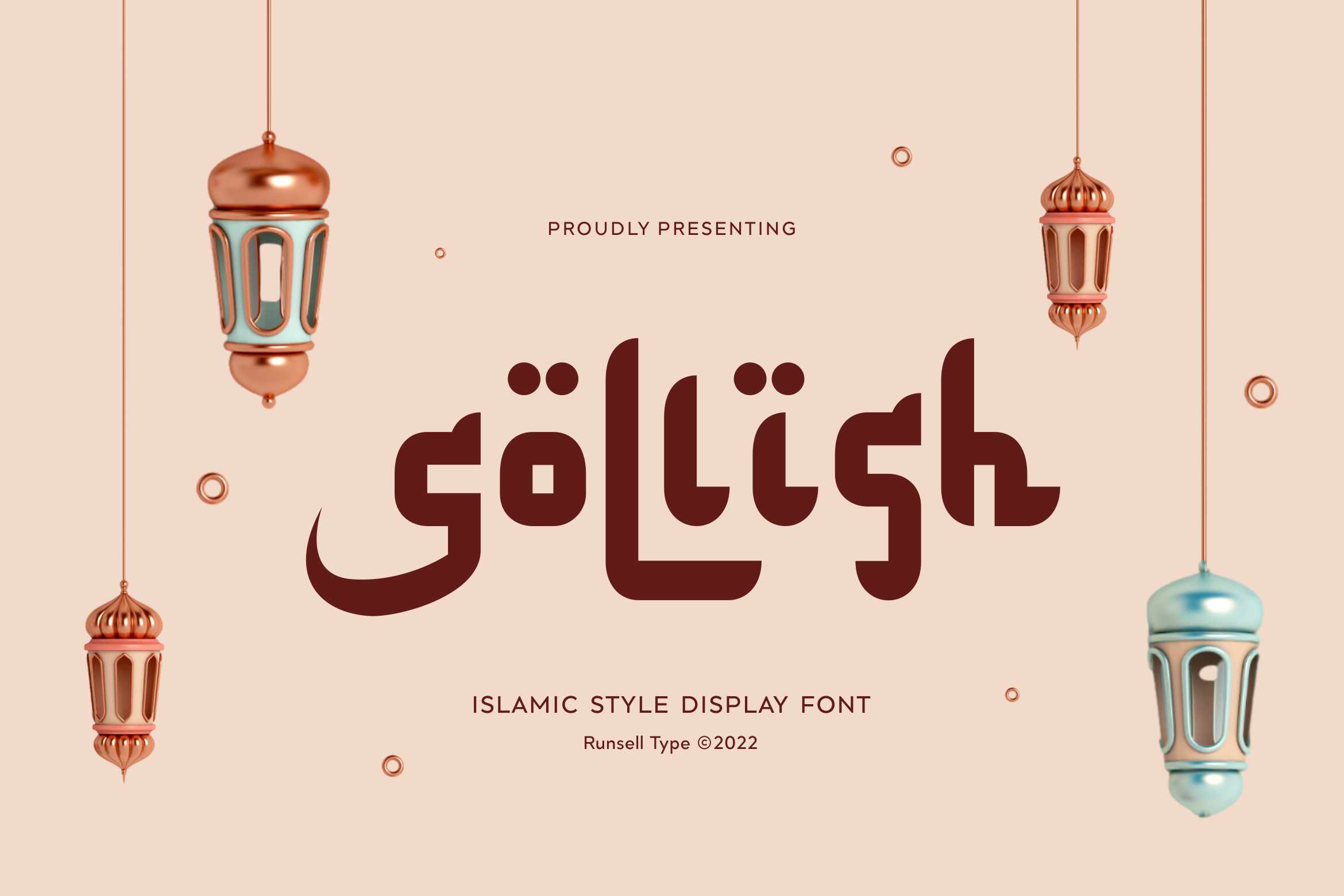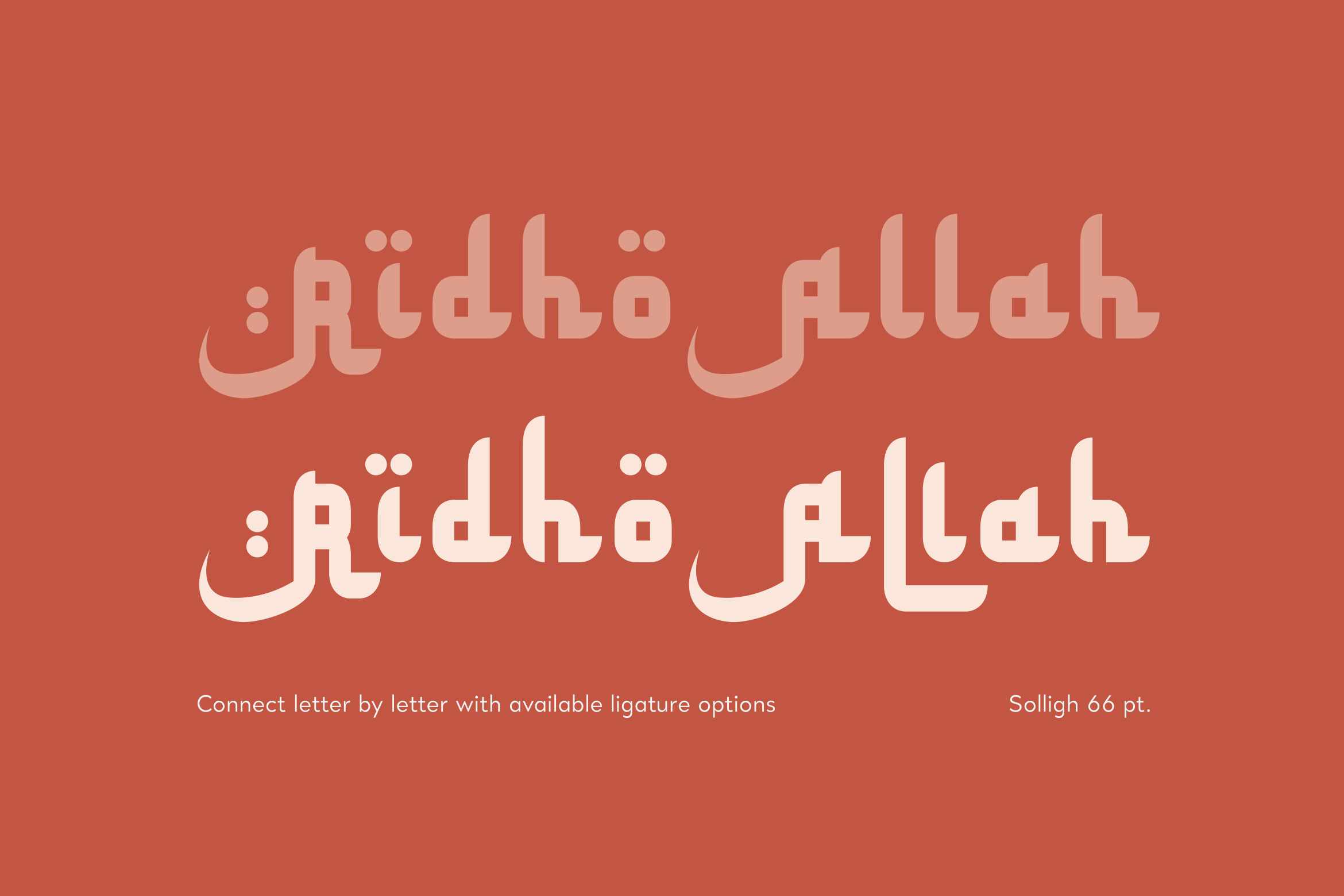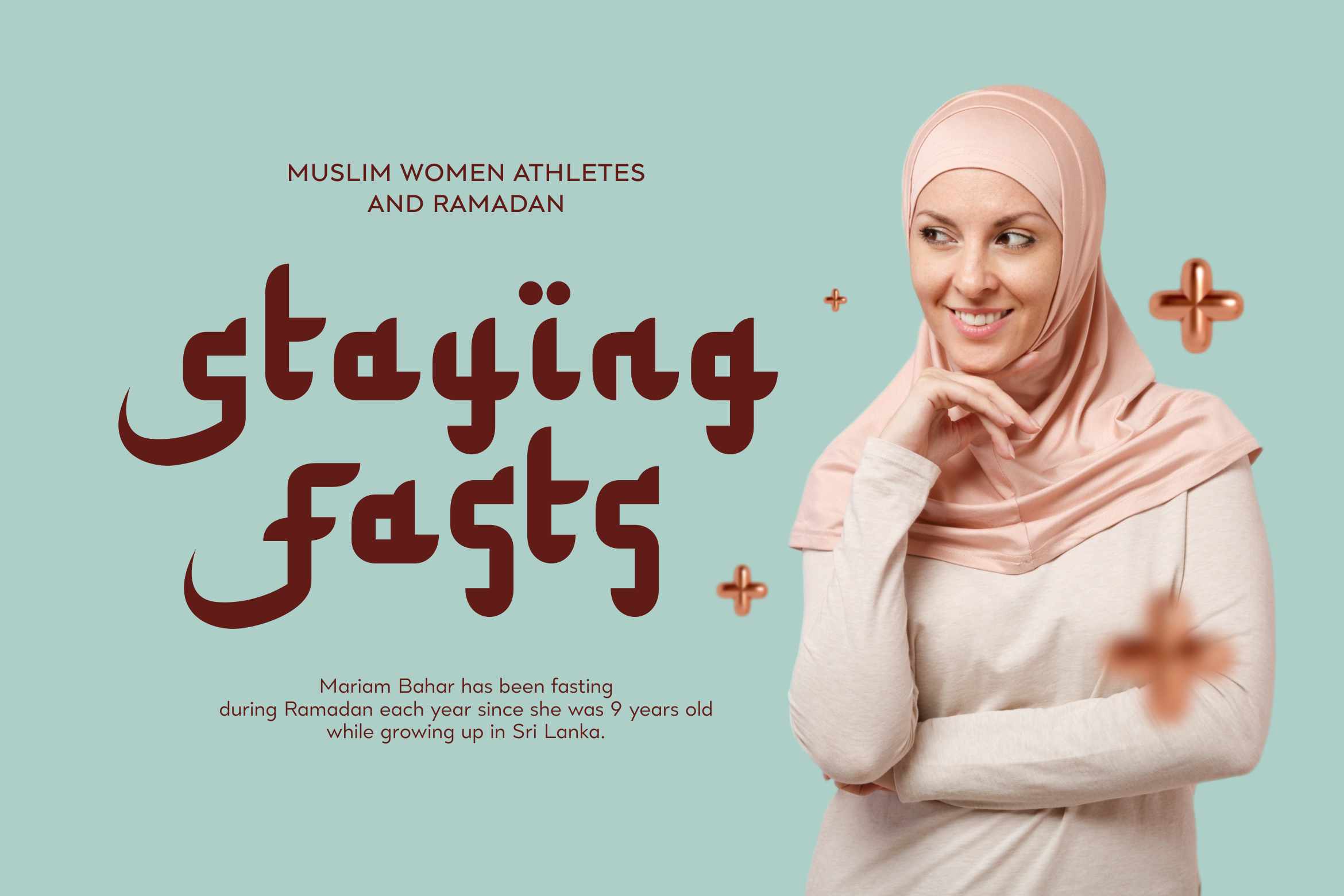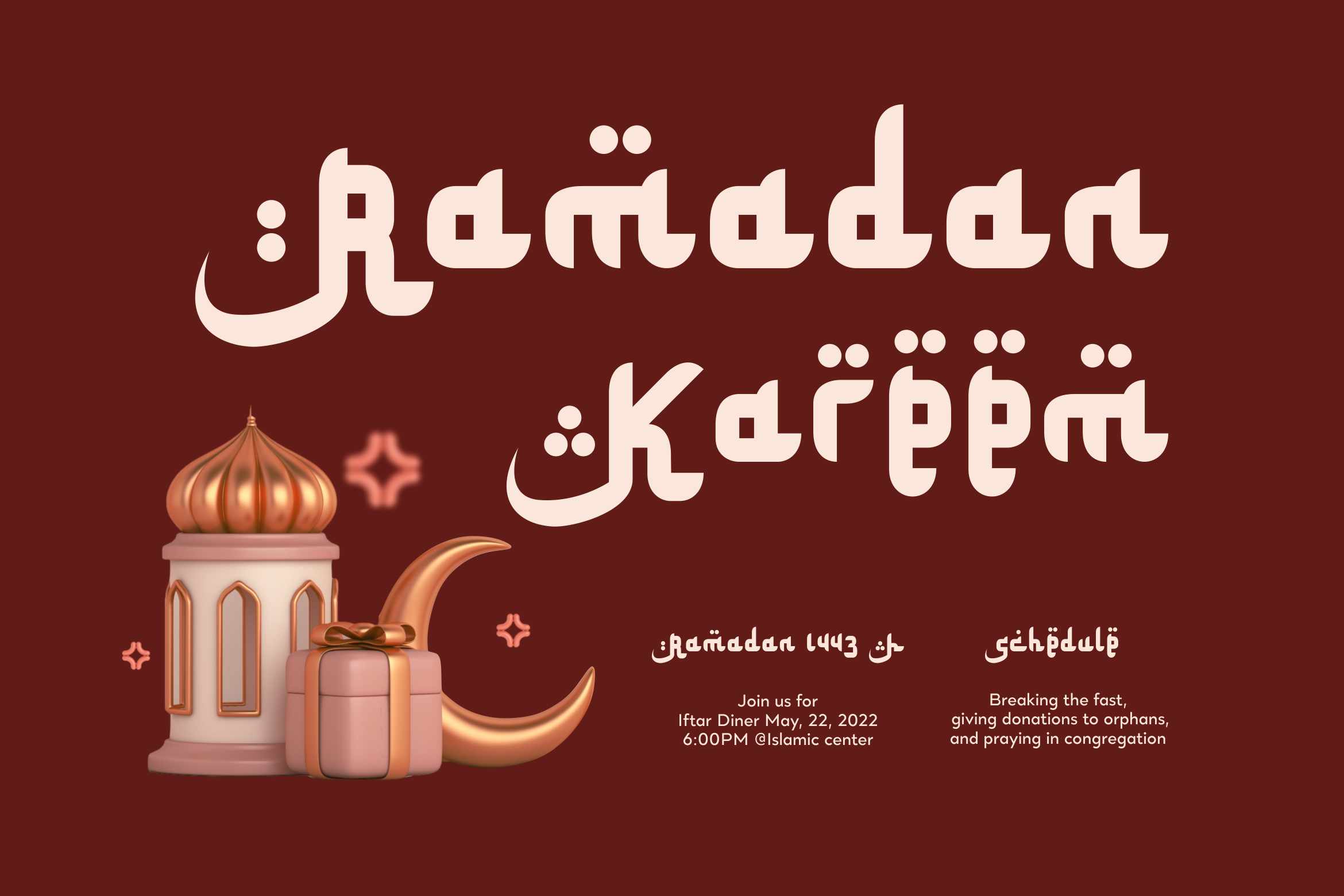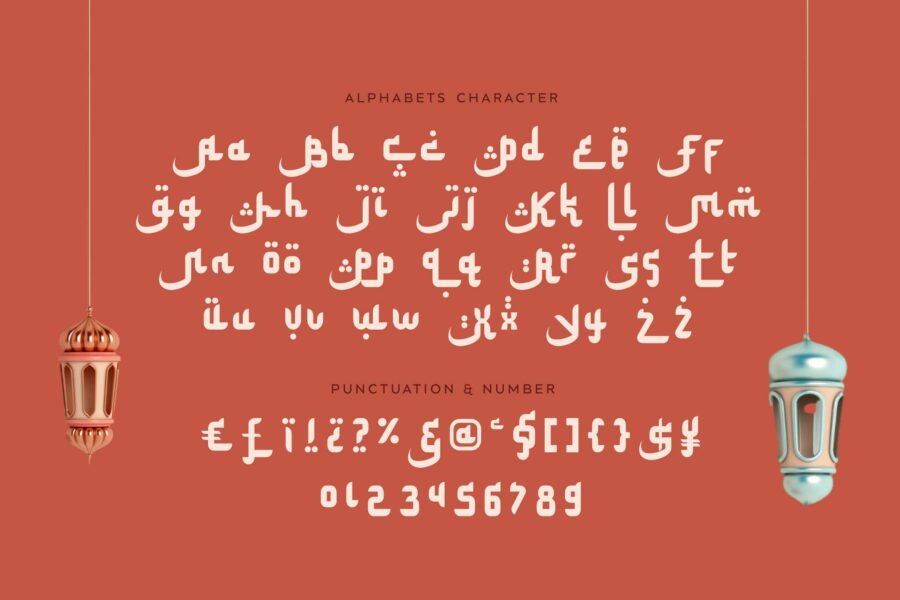
Solligh is a bold and contemporary Islamic-style display font that draws its character from traditional Arabic aesthetics fused with modern geometric shapes. Its distinct curved terminals and unconventional ligatures give it a dynamic rhythm, perfect for religious celebrations, cultural branding, and spiritual event designs. The font includes both Latin and Arabic-inspired letterforms, allowing for diverse and rich typographic expressions.
With strong visual presence and playful forms, Solligh is ideal for festive packaging, Islamic merchandise, editorial headers, or campaign posters during Ramadan, Eid, or other Islamic occasions. Its unique ligature options and multilingual support make it a versatile choice for creatives aiming to balance heritage and modernity.
Solligh